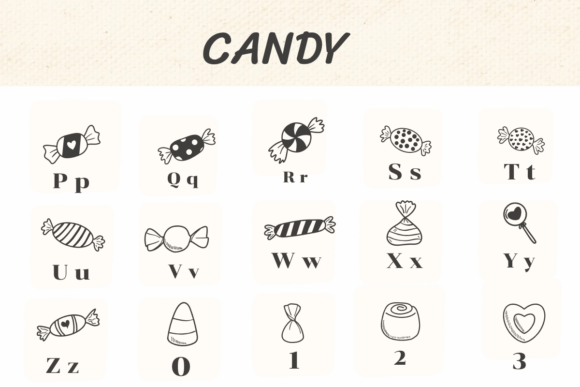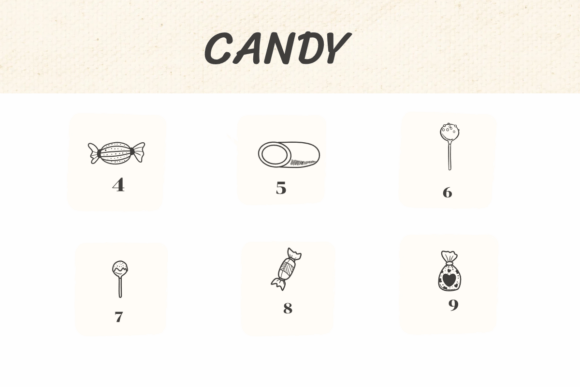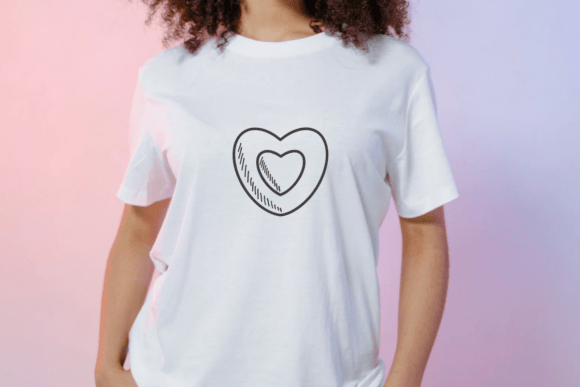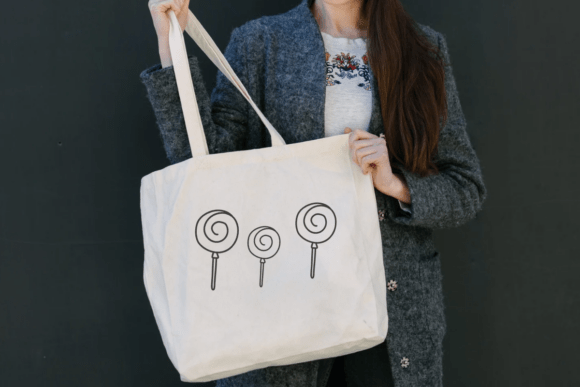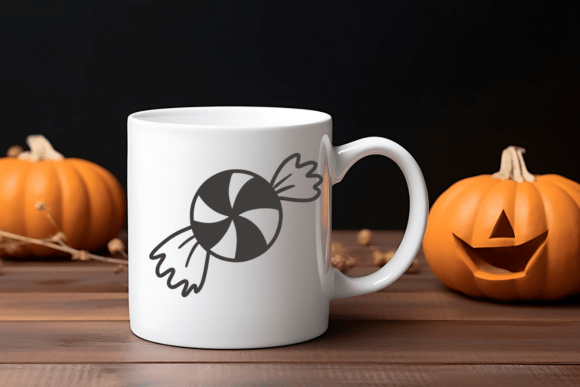
Candy Font: Add a Sweet Touch to Your Designs with Doodle Time
Are you looking for a font that can add a playful and whimsical touch to your designs? Look no further than the Candy Font, specifically Doodle Time, a cute and fun dingbats font that is sure to delight designers and crafters alike. In this article, we’ll explore the features and benefits of Doodle Time and how you can use it to take your creative projects to the next level.
What is Doodle Time?
Doodle Time is a dingbats font that is part of the Candy Font family. It’s a unique and creative font that features playful and whimsical designs, perfect for adding a sweet touch to your projects. The font is made up of various doodle-inspired characters, including shapes, symbols, and icons that can be used to add visual interest and personality to your designs.
Features of Doodle Time
Doodle Time is a versatile font that offers a range of features that make it perfect for designers and crafters. Some of its key features include:
- Cute and playful designs: Doodle Time features a range of adorable and playful designs that are sure to delight. From cute animals to sweet treats, this font has everything you need to add a touch of whimsy to your projects.
Benefits of Using Doodle Time
There are many benefits to using Doodle Time in your designs. Some of the most significant advantages include:
- Adds a playful touch: Doodle Time is the perfect way to add a playful and whimsical touch to your designs. Whether you’re creating a children’s book or a craft project, this font is sure to delight.
- Increases creativity: Doodle Time is a versatile font that can be used in a variety of creative ways. Whether you’re designing a logo, a poster, or a social media graphic, this font is sure to inspire your creativity.
- Perfect for crafters: Doodle Time is a great font for crafters, particularly those who enjoy scrapbooking, card making, and other paper crafts. The font’s playful designs are perfect for adding a personal touch to your projects.
Using Doodle Time in Your Designs
Using Doodle Time in your designs is easy. Here are a few tips to get you started:
- Experiment with different sizes and colors: Doodle Time is a versatile font that can be used in a variety of sizes and colors. Experiment with different combinations to find the one that works best for your design.
- Mix and match with other fonts: Doodle Time can be paired with other fonts to create a unique and interesting design. Try pairing it with a bold font for a striking contrast.
- Use it for headings and titles: Doodle Time is a great font for headings and titles. Use it to add a playful touch to your design and draw attention to important information.
Doodle Time is a cute and fun dingbats font that is sure to delight designers and crafters alike. With its playful and whimsical designs, this font is perfect for adding a sweet touch to your projects. Whether you’re creating a children’s book, a craft project, or a social media graphic, Doodle Time is a great choice. So why not give it a try and see the creative possibilities for yourself?